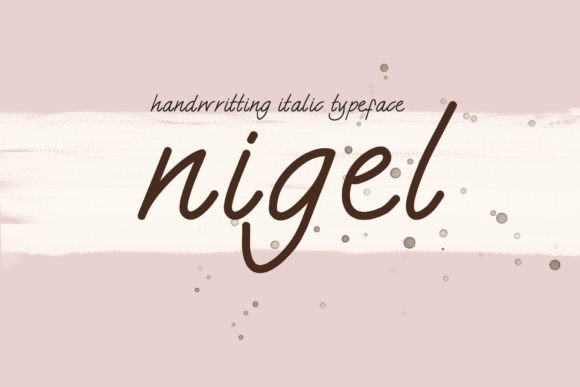
Journey into the world of sheer elegance and sophistication with our exclusive Nigel Font, a captivating masterpiece designed to ignite your creativity. Crafted by the brilliant Carolina Mejia, Nigel is not just a font; it's an art form, a symphony of style that dances across your digital canvas. Its cursive italic handwriting and script style evoke a sense of timeless grace, adding a touch of magic to every word you type. The pen-style look of Nigel lends it an air of authenticity and charm, as if each letter were lovingly penned by a skilled calligrapher. With its effortless flow and impeccable legibility, Nigel transforms your digital creations into breathtaking works of art.
Whether you're a passionate blogger pouring your heart into your online journal, a creative entrepreneur crafting a captivating brand identity, or a social media enthusiast seeking to make a statement, Nigel is your perfect companion. Its delicate strokes and enchanting curves add a touch of allure to your words, drawing readers in and captivating their attention. Elevate your digital presence with Nigel, and let your words dance with elegance and poise.
Embrace the power of Nigel and let your creativity soar. Its versatility knows no bounds, seamlessly adapting to a myriad of projects. Design eye-catching logos that exude sophistication, create stunning social media graphics that leave a lasting impression, or craft enchanting invitations that hint at the magic within. With Nigel, the possibilities are endless.
Don't settle for ordinary fonts that fade into the background. Choose Nigel, the font that shines with brilliance and captures hearts. Experience the sheer joy of creating with a font that truly understands the essence of beauty and grace. Discover the boundless potential of Nigel today and elevate your digital creations to new heights of artistry.